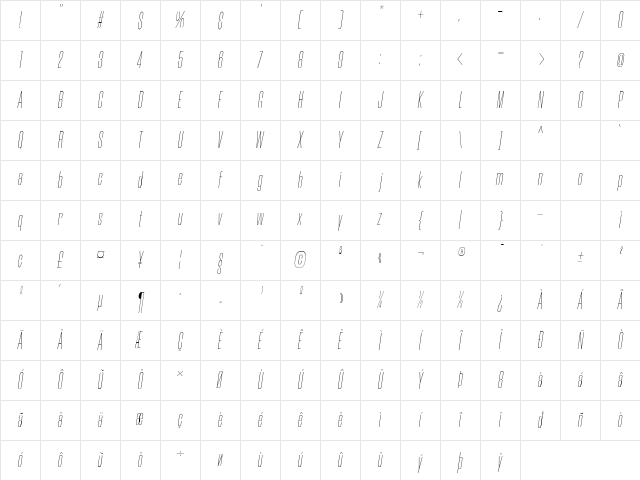
Morganite Thin Italic Free Font
Morganite Thin Italic
Foundry: Rajesh Rajput
Designer: Rajesh Rajput
Design Context for Morganite
Morganite is a composed and adaptable typeface that performs quietly and consistently across a wide range of design contexts. The slanted form adds forward momentum and visual energy. Its slender proportions lend an understated elegance to any composition.